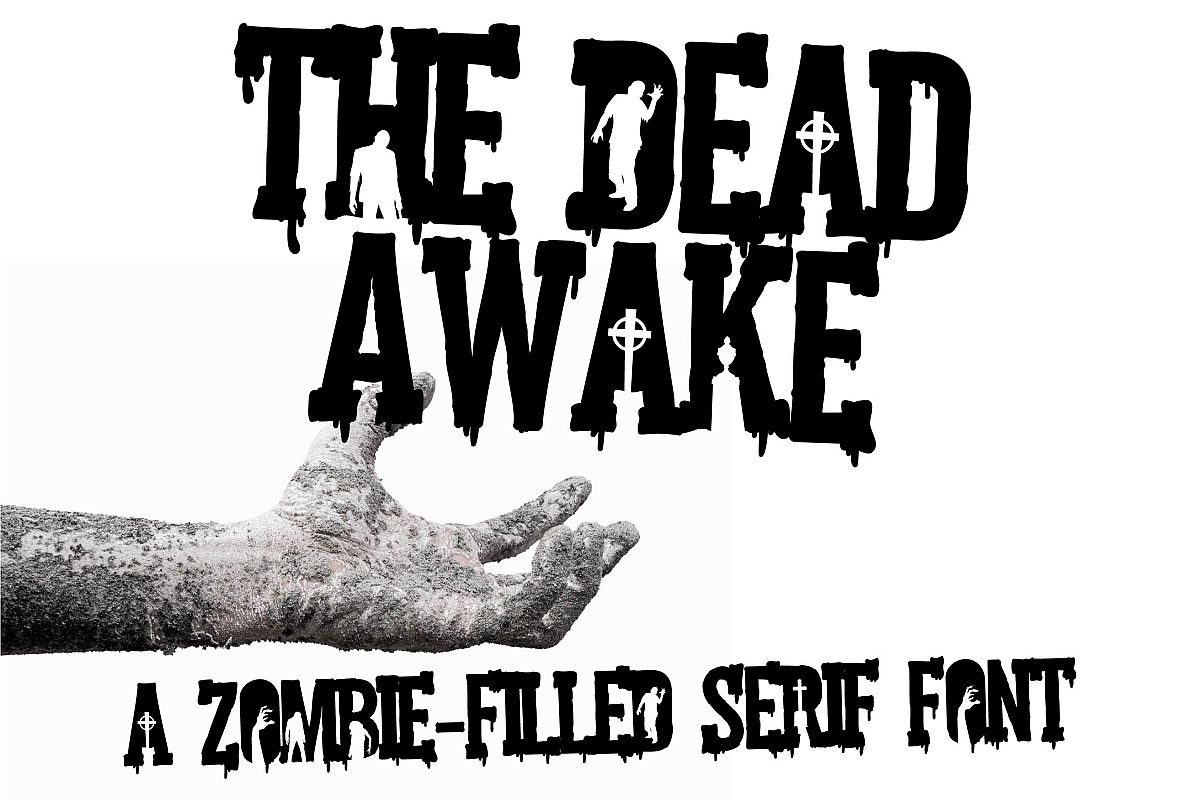
ZP The Awake
This serif font has no true lowercase. Rather the lowercase features zombie like additions. If you like this font, check out her sister font: The Dead Walk